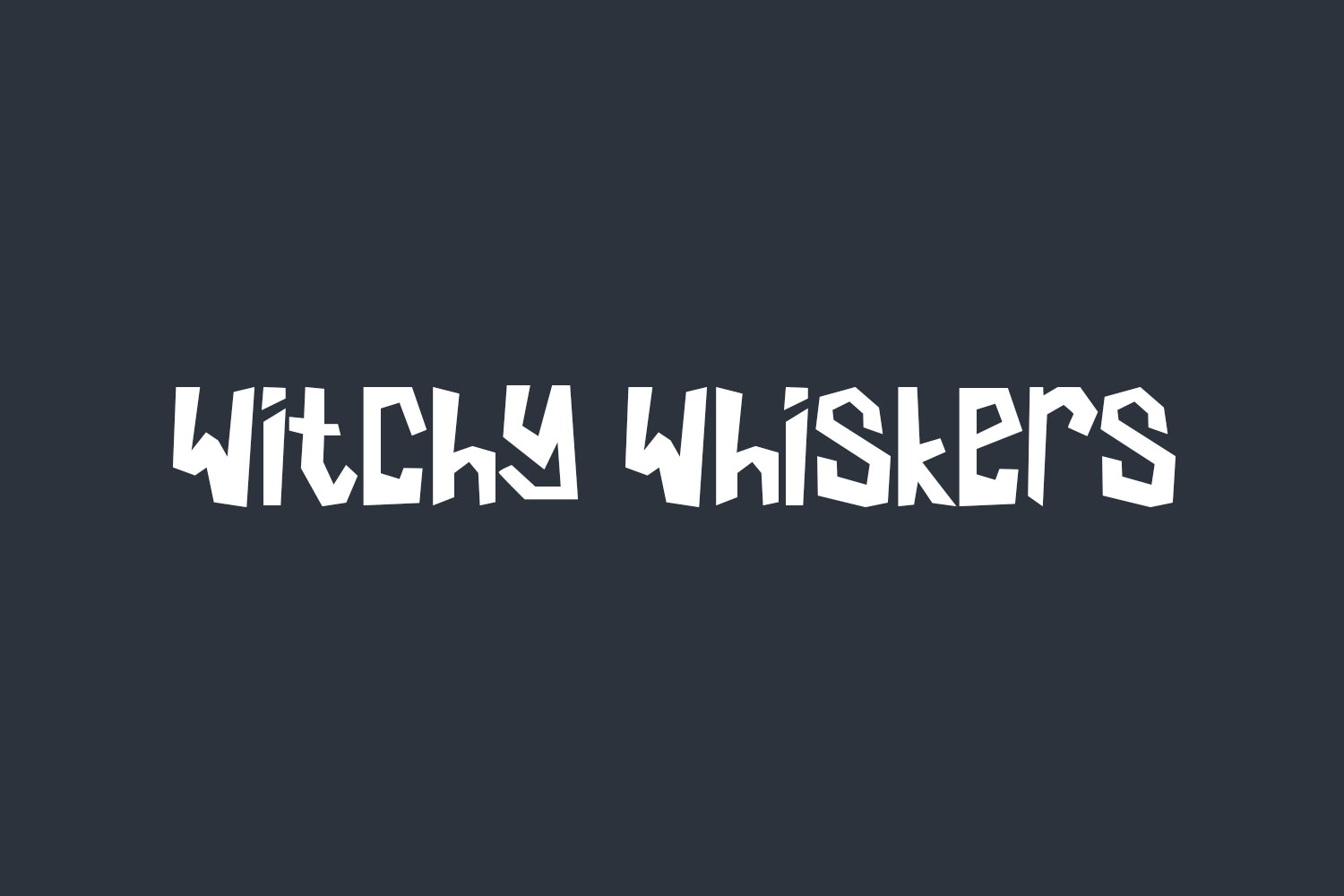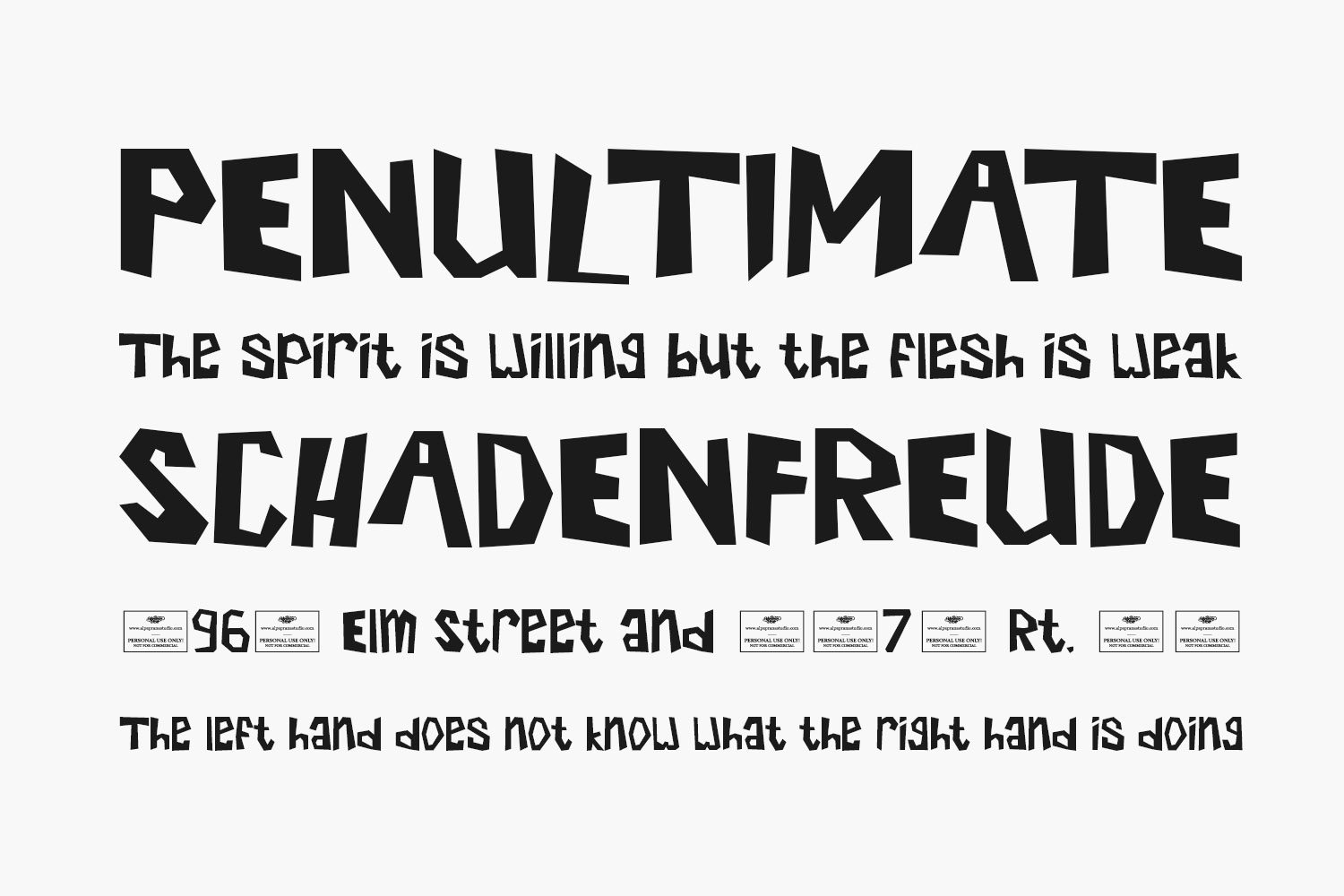
Witchy Whiskers Free Font is an enchanting display font that exudes a delightful charm. This versatile typeface is an ideal choice for various creative applications, including branding, logo design, lettering, logotype creation, apparel design, posters, magazine layouts, packaging, shopping bag designs, t-shirts, book covers, photography projects, special events, and a wide range of other design endeavors. Its whimsical appeal and adaptability make it a fantastic addition to any design project. Witchy Whiskers Free Font is a demo and free for personal use only. Please purchase the full version for commercial use.